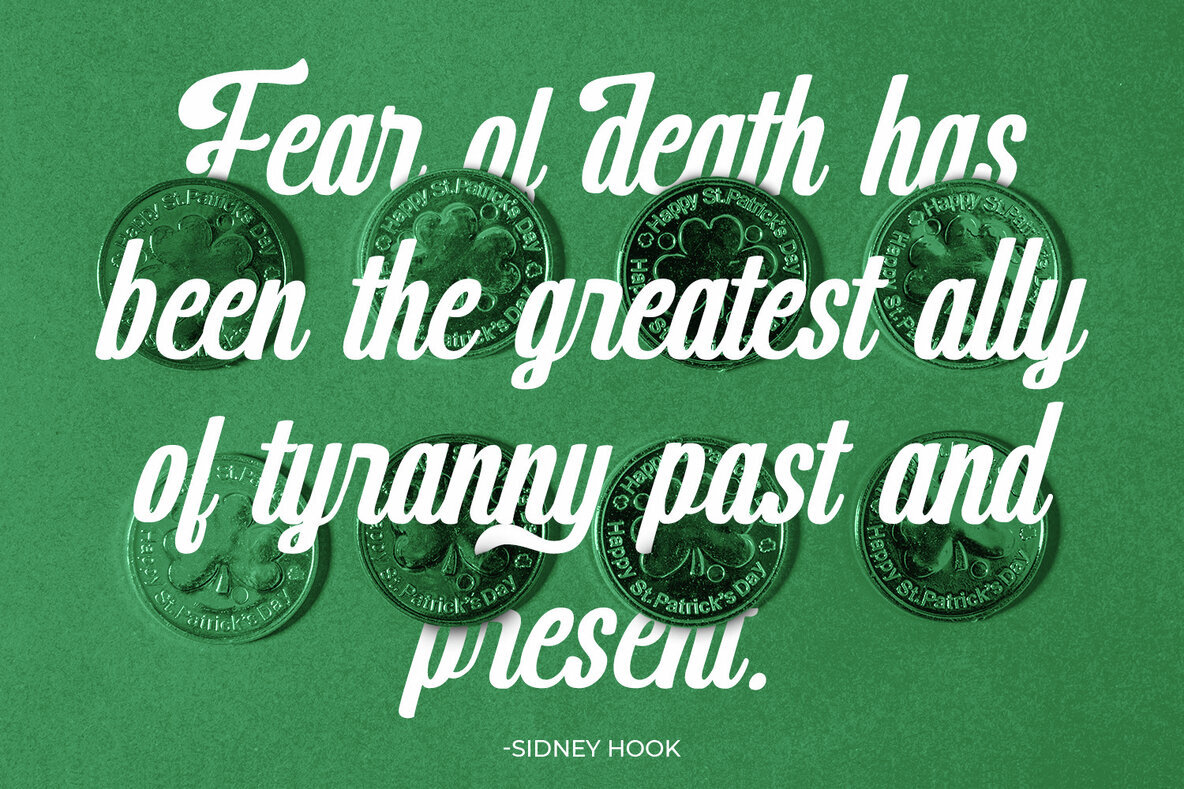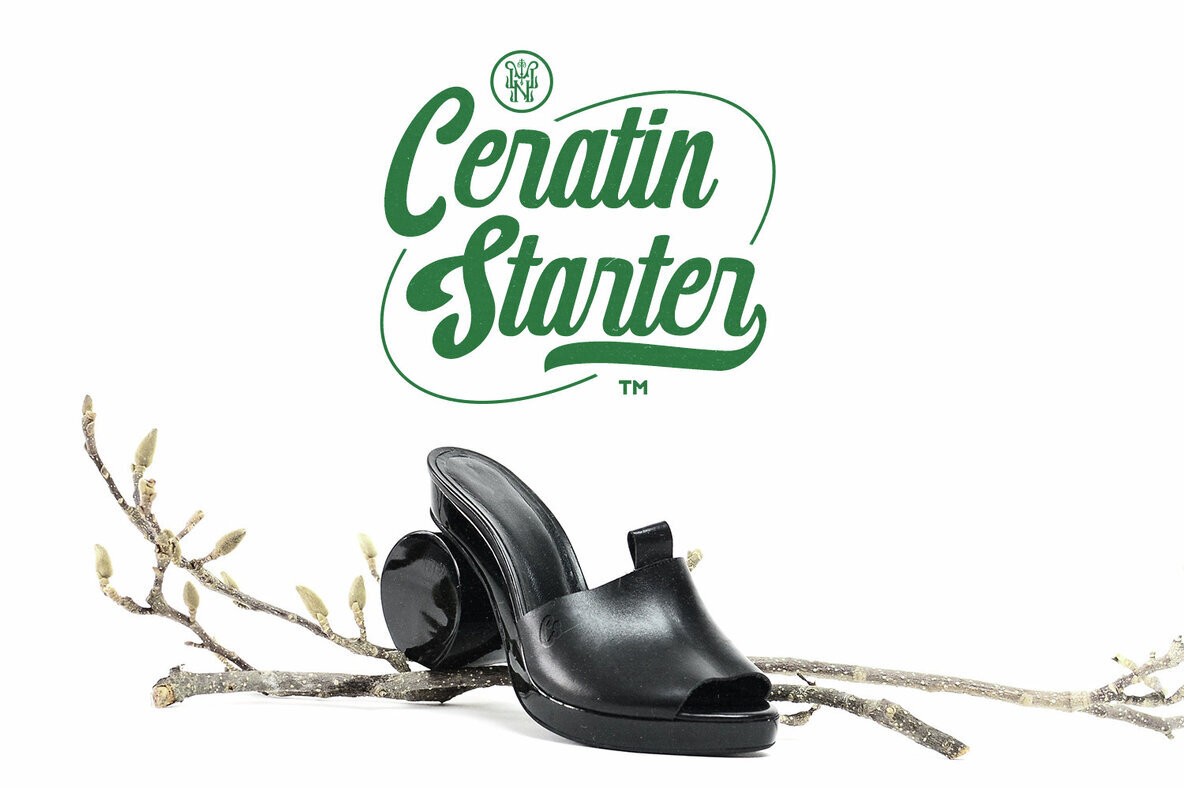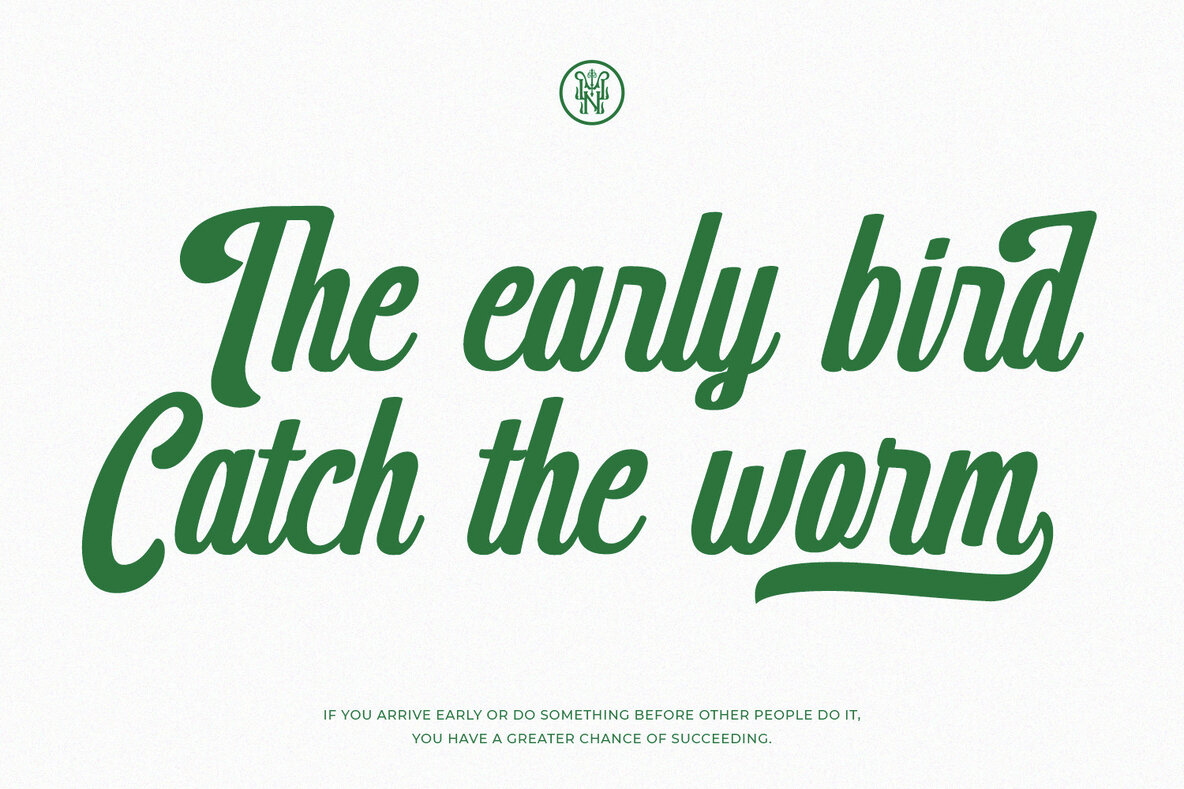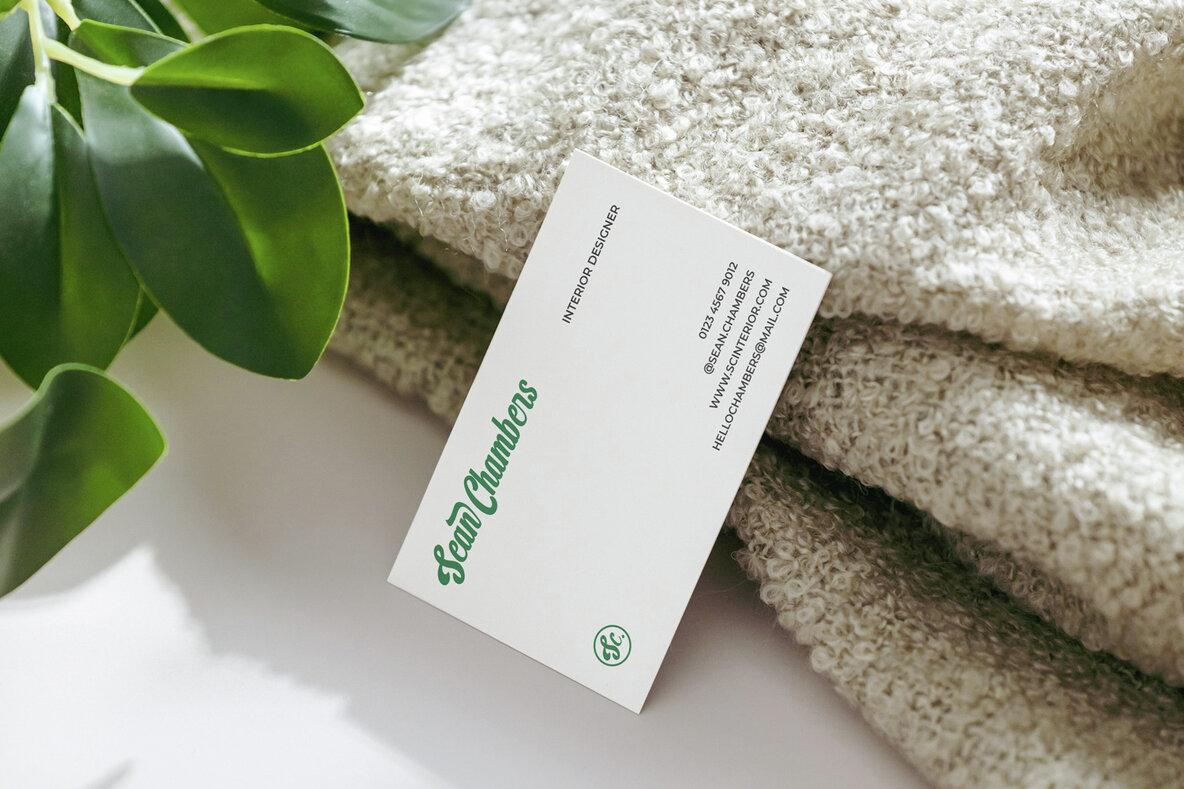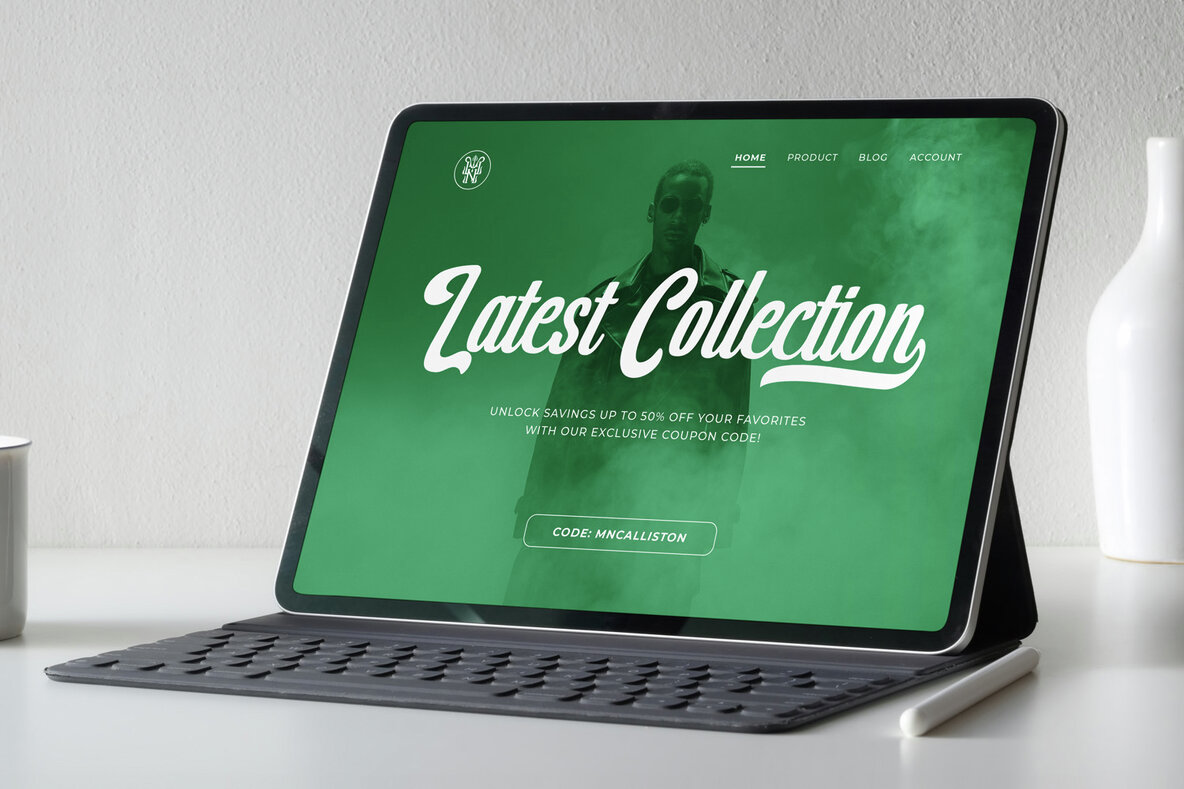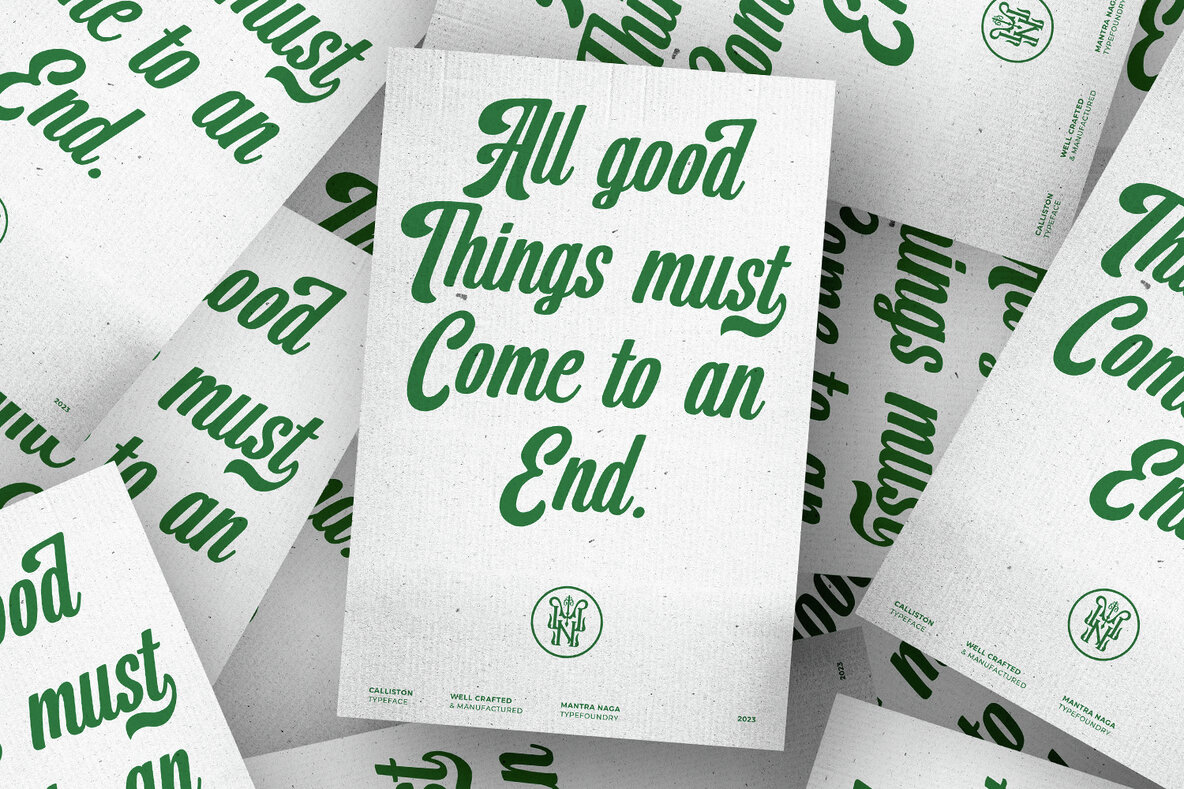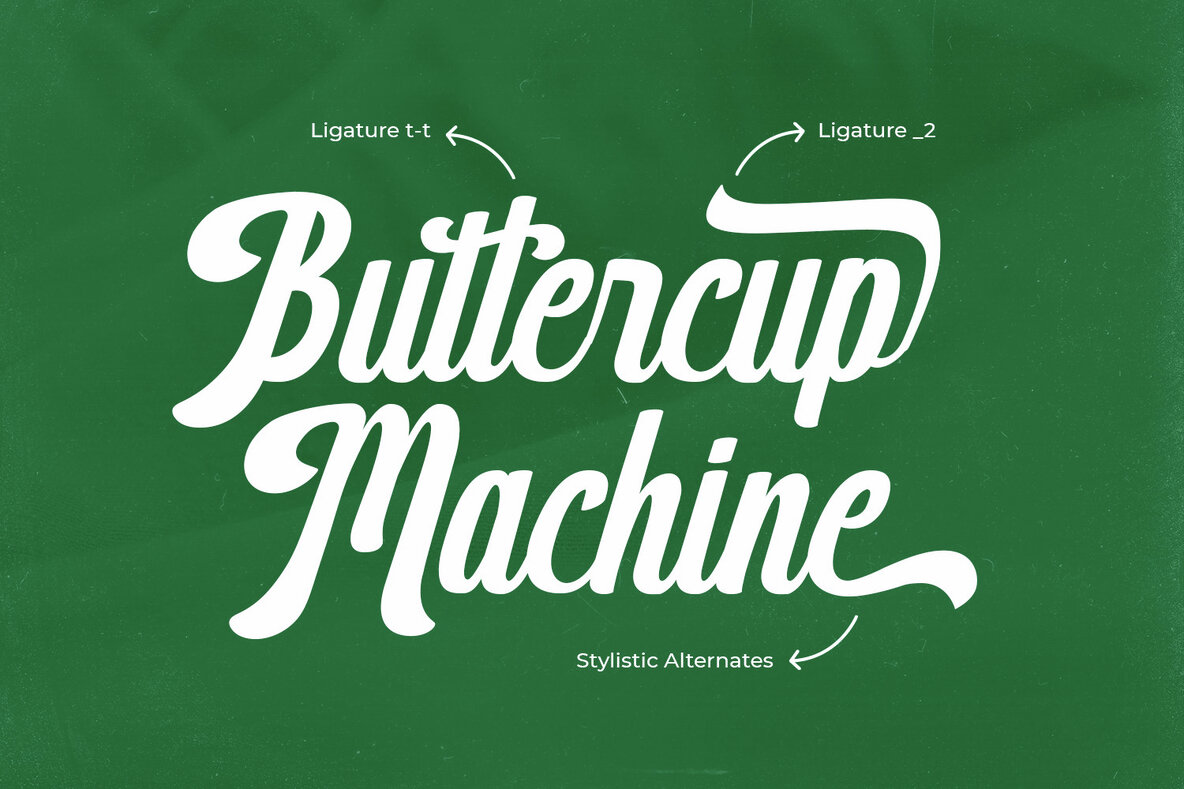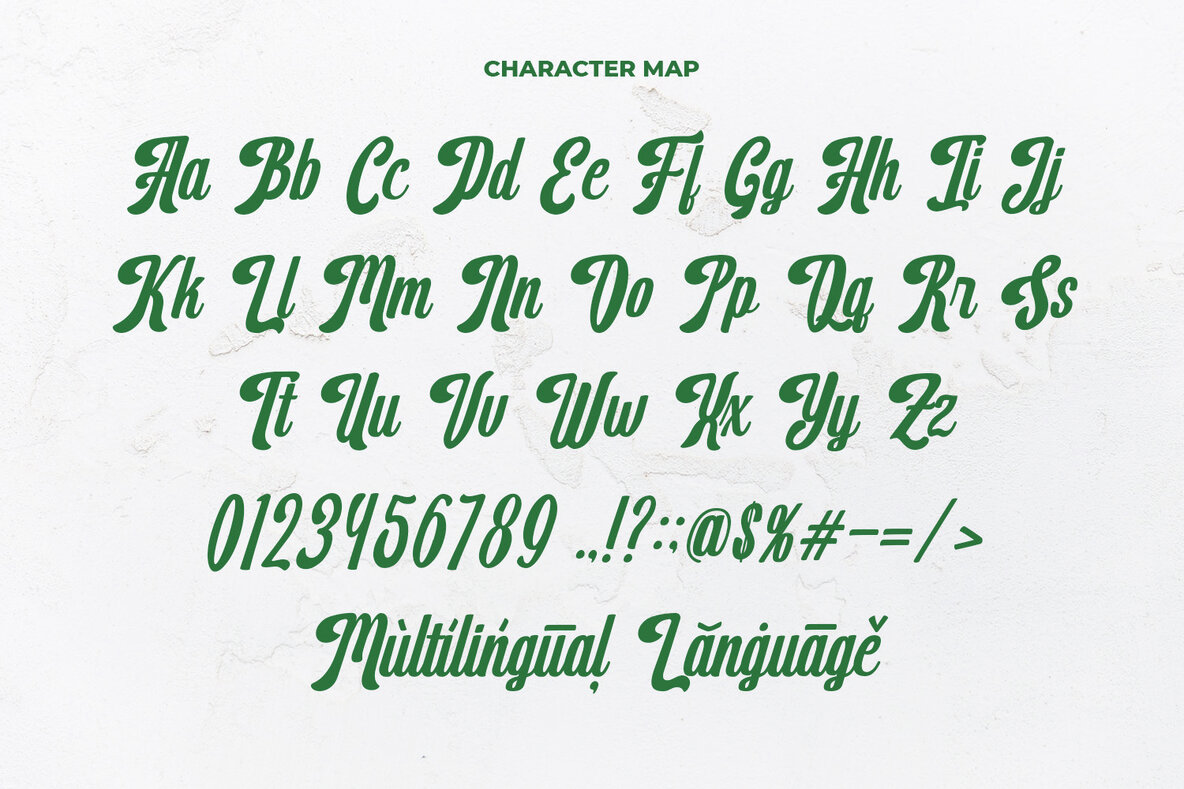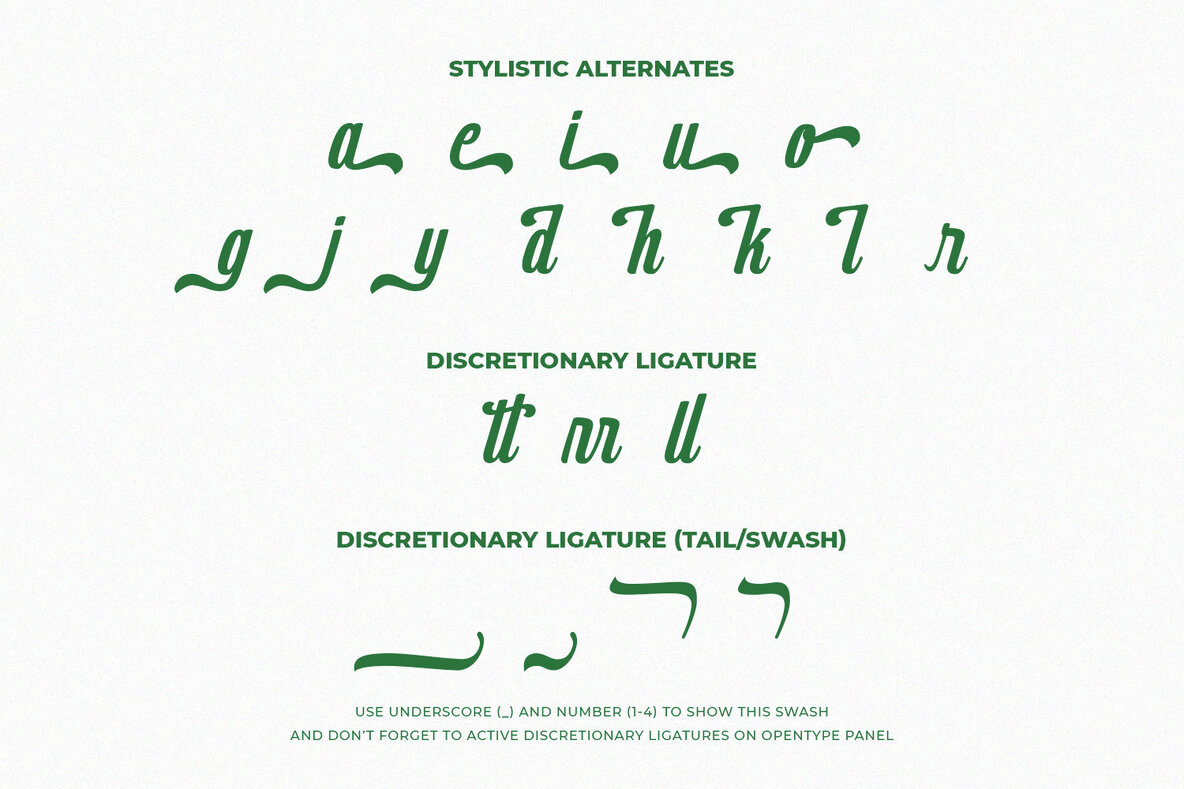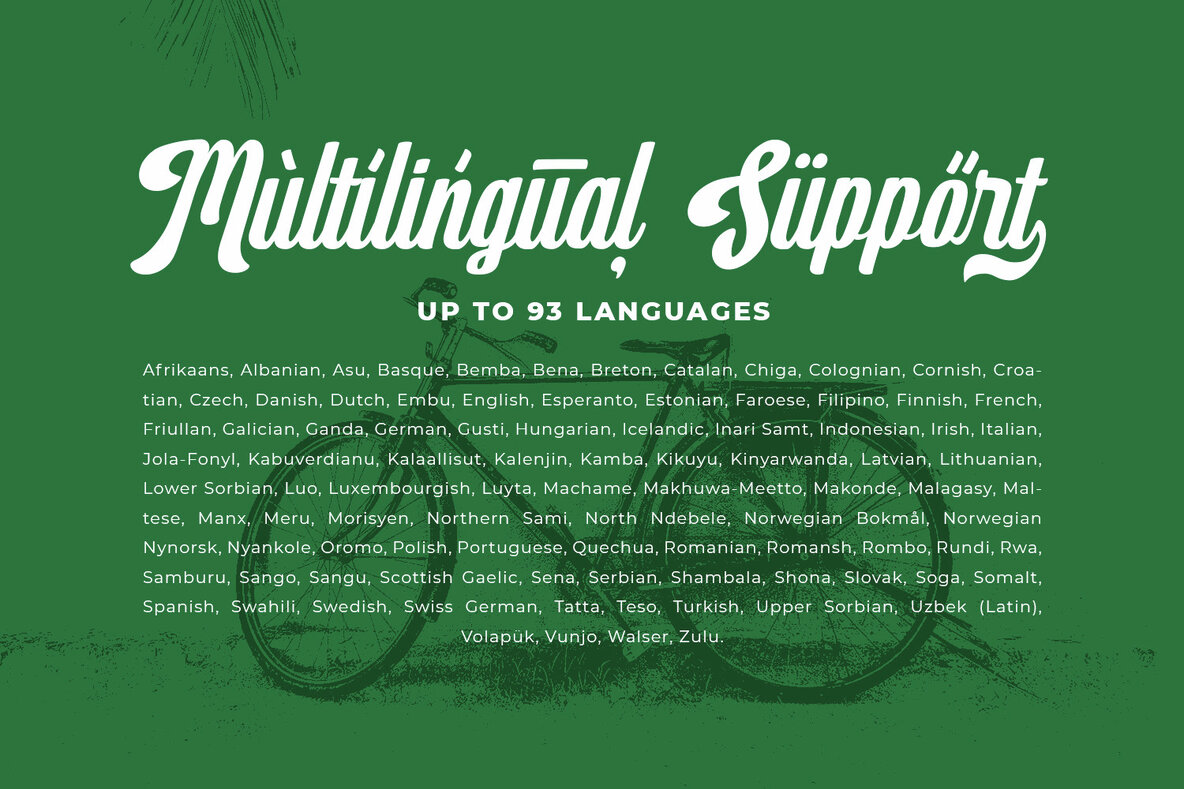
MN Calliston Font
MN Calliston Regular
MN Calliston, is a vintage script font with bold characters but still elegant. Using a condensed style in letter construction, this font is very suitable for headlines / display text. Has stylistic alternates, ligatures, and swashes to add aesthetic value to this font. Multilingual supports as many as 93 languages so this font can be used globally.